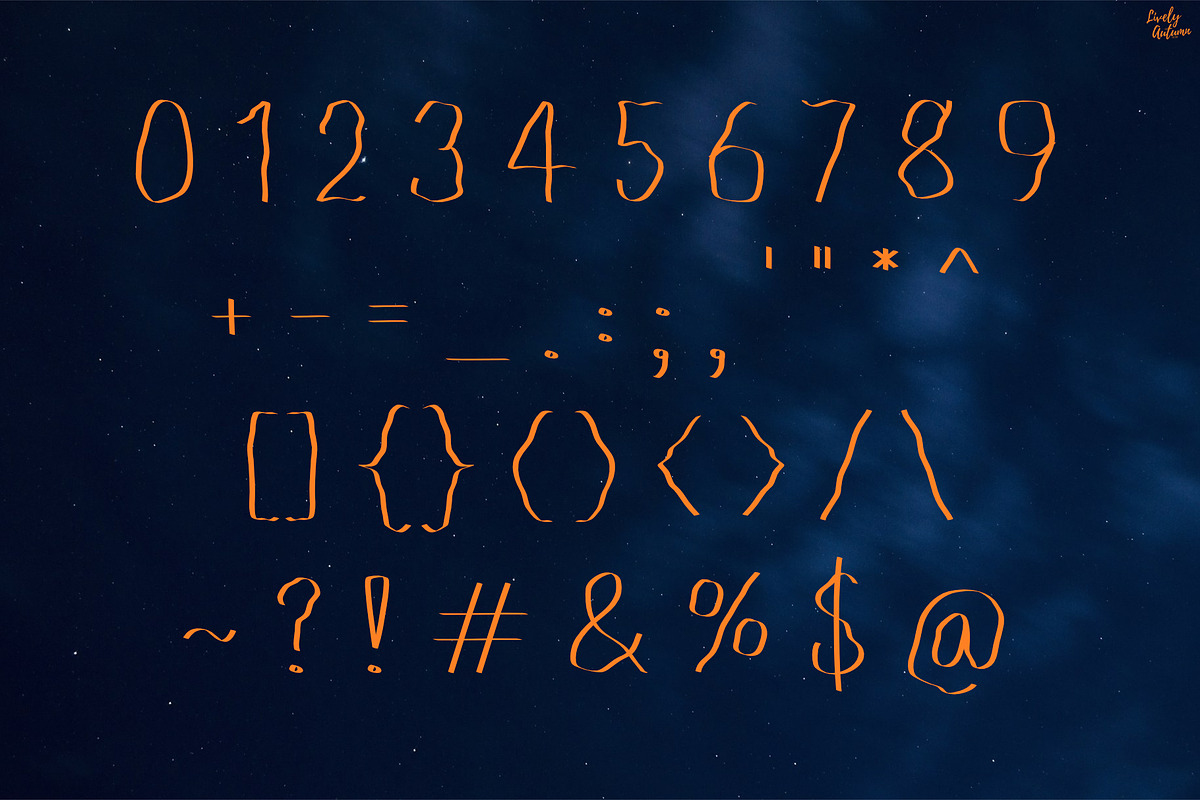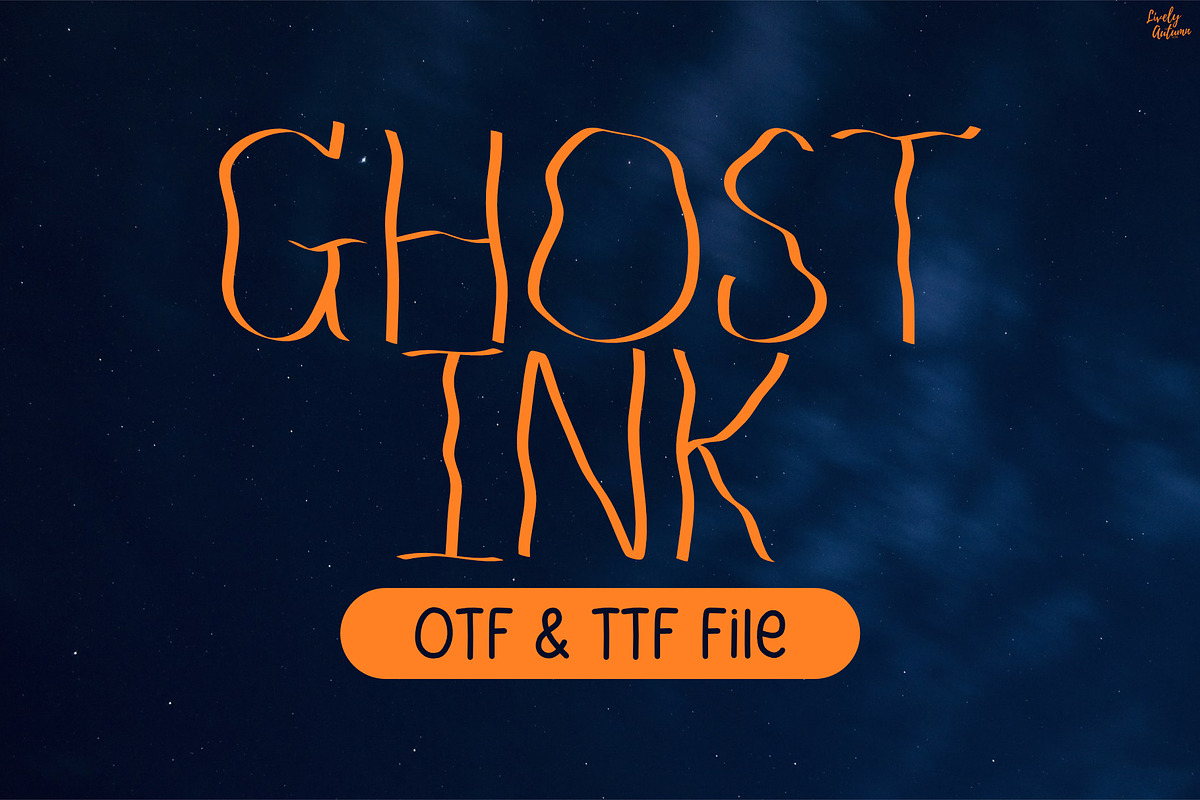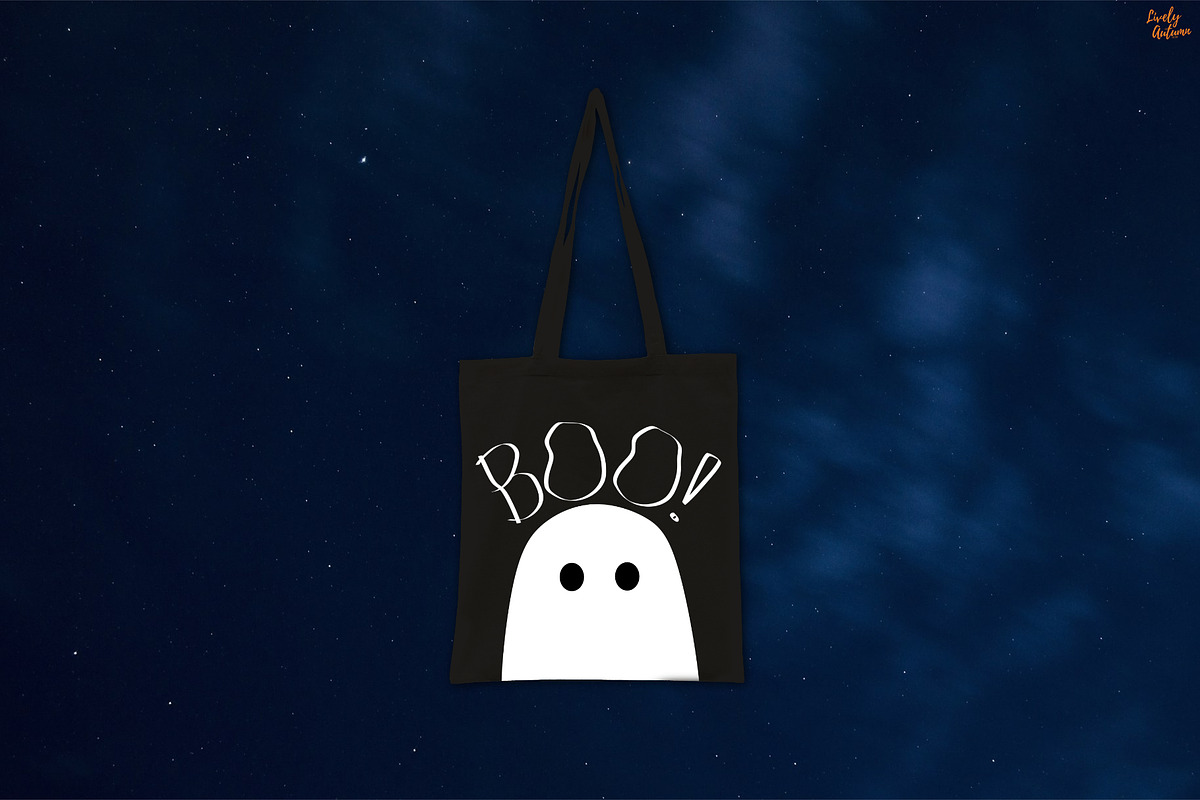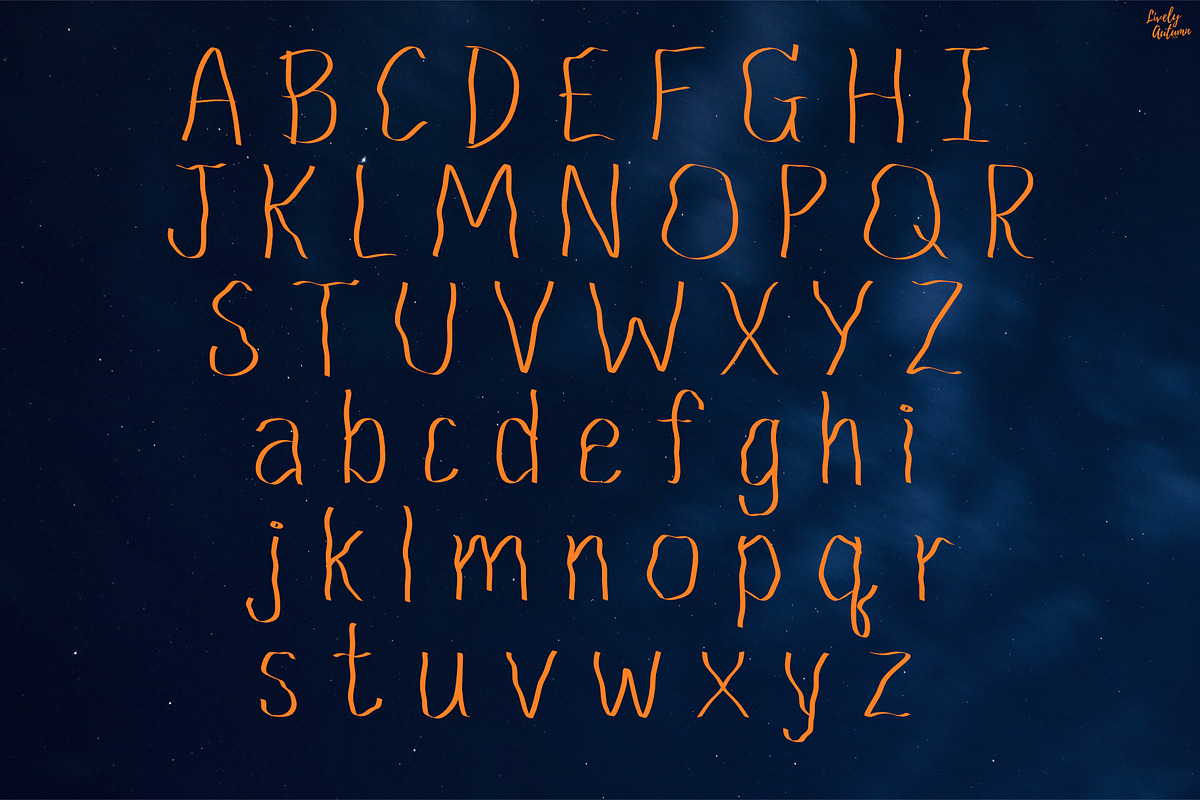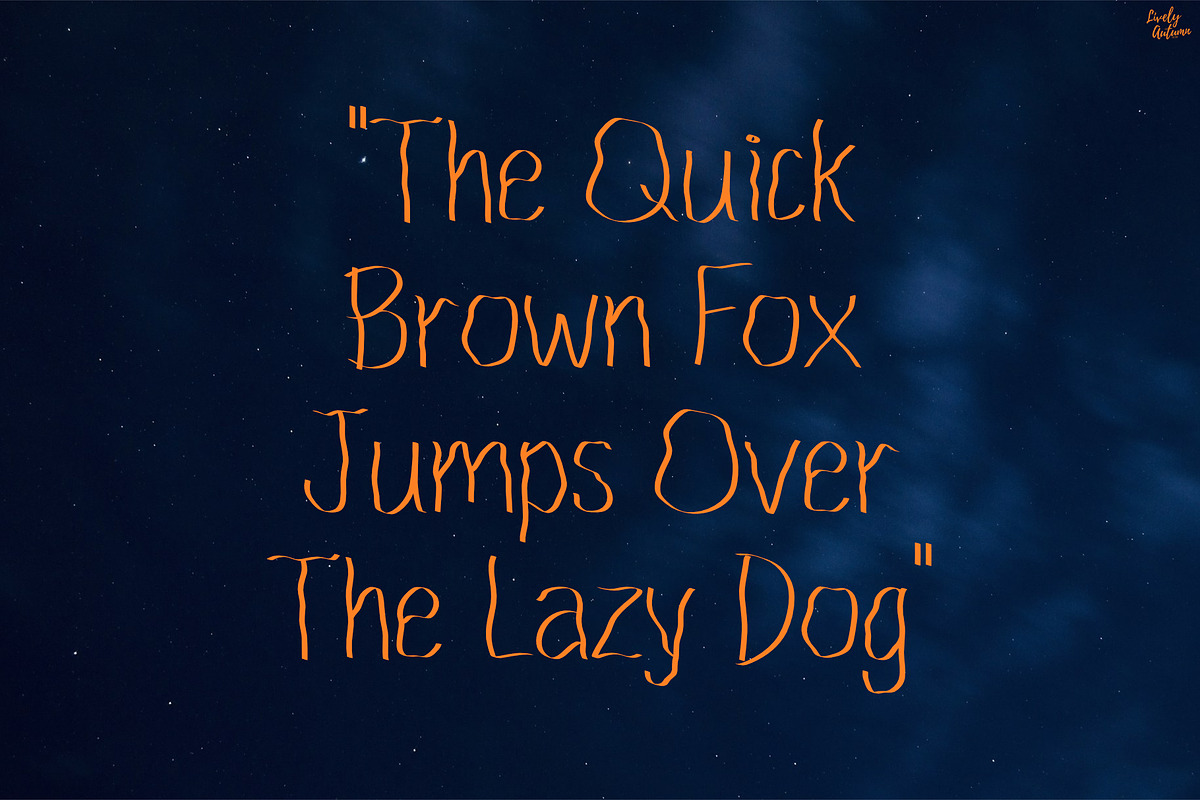
Ghost Ink | Shaky Handwritten font
Ghost Ink font is a shaky handwritten font. Perfect for your personal projects and various projects. From invitations to posters, social media graphics, journals, stickers and much more.
- Font includes: uppercase, lowercase, numbers, and punctuation